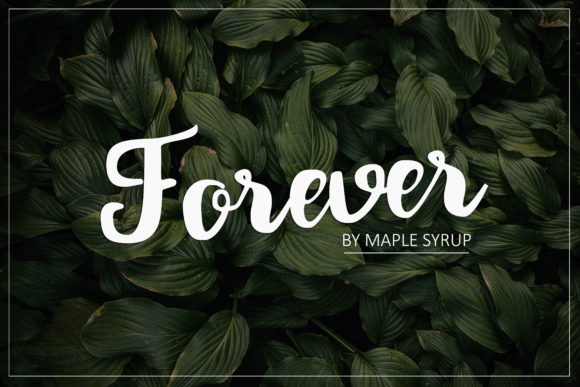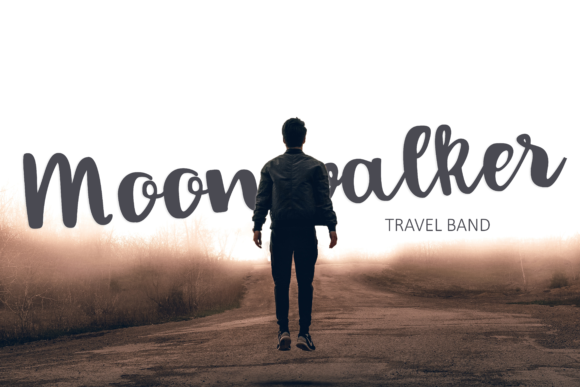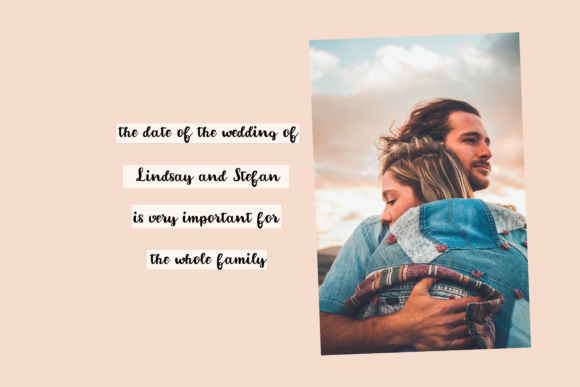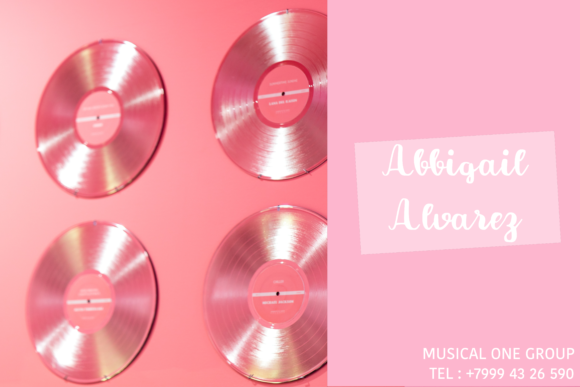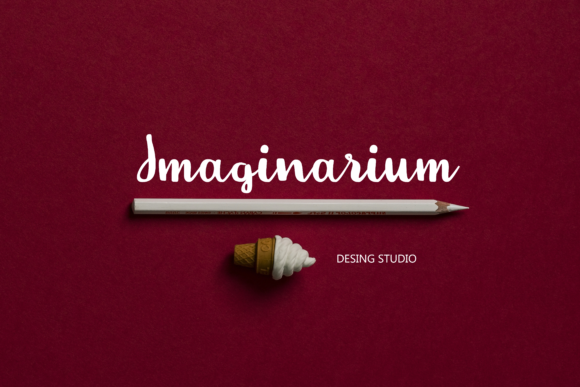
HomeScript FontsForever Script Font Script Fonts Forever Script Font FacebookXPinterestWhatsApp Forever Script Font Poster 2 Forever Script Font Poster 3 Forever Script Font Poster 4 Forever Script Font Poster 5 About Forever Script Font Forever Script is a typeface inspired by love. The best thing in live is to believe that love is forever. DOWNLOAD NOW People also explored Breakers Slab Font Blackbone Font Woman Beauty Font Rinjany – Textured Brush Font Love Conchetta Font Stunia Origine Font Cenios Font Toronto Font Orine Font 308 0 TagsForever Script Font Previous articleHappy Ending FontNext articleEdgy Marker Font LEAVE A REPLY Cancel reply Comment: Please enter your comment! Name:* Please enter your name here Email:* You have entered an incorrect email address! Please enter your email address here Website: Save my name, email, and website in this browser for the next time I comment. Personal Use Free Abingdon Personal Use Free Read more about this font Karmatic Arcade Personal Use Free Read more about this font Braindly Personal Use Free Read more about this font Moon Light Personal Use Free Read more about this font BLOG Best Fonts for YouTube Videos: Make Your Thumbnails Stand Out Best Fonts for YouTube Videos: Make Your Thumbnails Stand Out Choosing the right font can make a massive difference in how your YouTube videos perform.... Best Fonts for T-Shirt Design – Top 2025 Picks Fonts That Capture the Spirit of New York City To increase your work productivity, choose the most readable fonts.